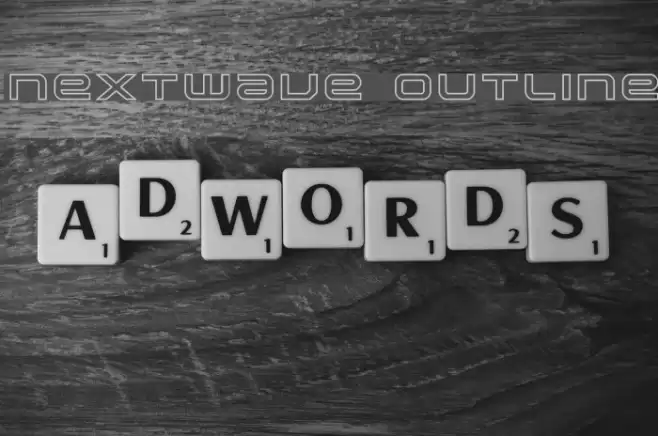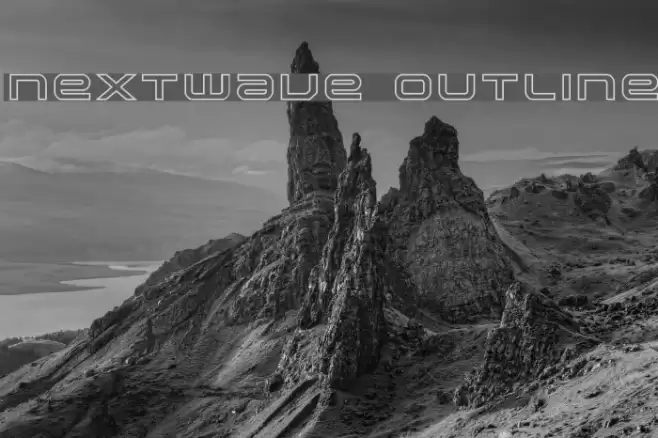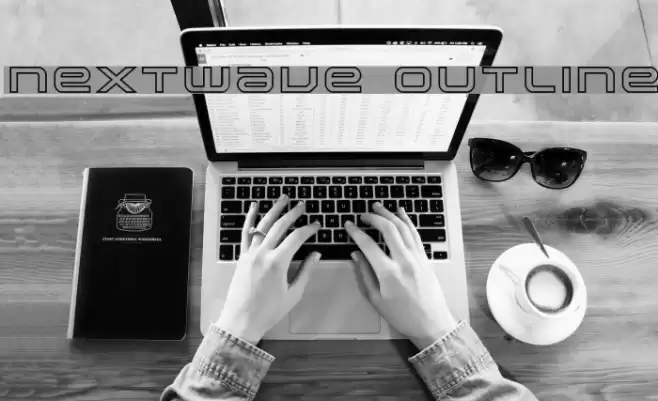
Nextwave Outline Font
Nextwave Outline Description
This font features a modern, geometric outline style that emphasizes clean lines and a futuristic aesthetic. Each character is defined by a consistent stroke width, creating a uniform and cohesive appearance. The uppercase and lowercase letters maintain a similar height, contributing to a balanced and harmonious look. The numerals and special characters are designed to match the overall style, ensuring versatility across different uses. The font's outline nature gives it a unique, airy feel, making it stand out in digital and print media.
A modern, geometric outline font with a futuristic aesthetic from Uncategorized fonts.
- Proposed Projects: Ideal for tech branding, digital media, posters, and futuristic designs.